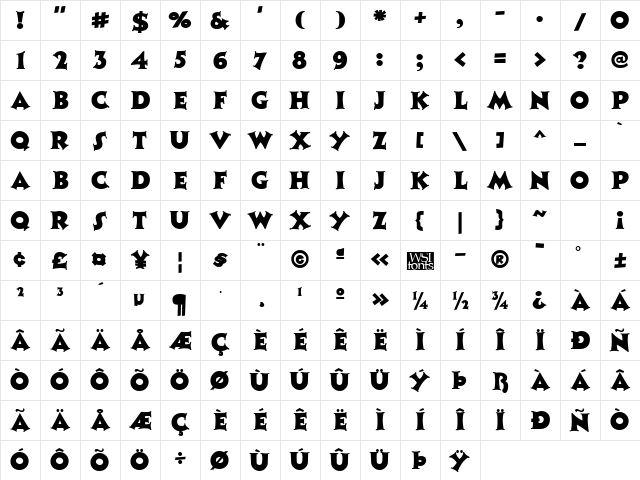
Coaster Regular
Coaster Family
Design Context for Coaster
Coaster is a composed and adaptable typeface that performs quietly and consistently across a wide range of design contexts.